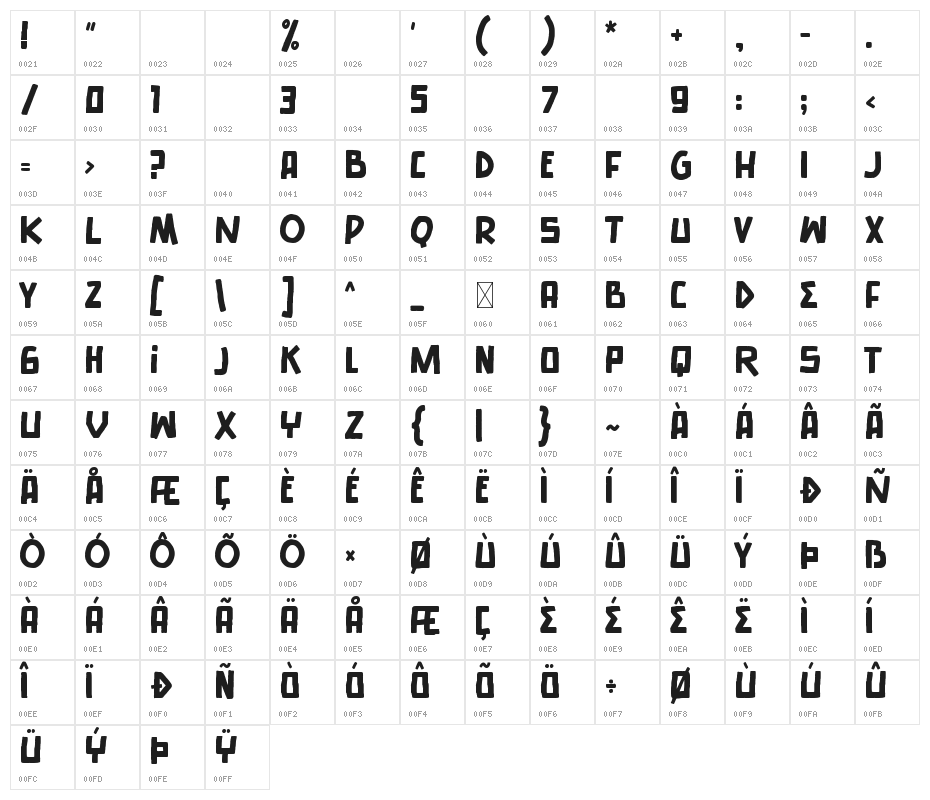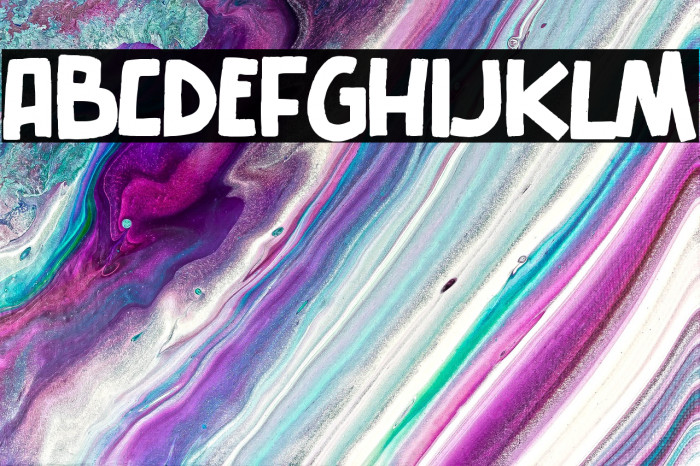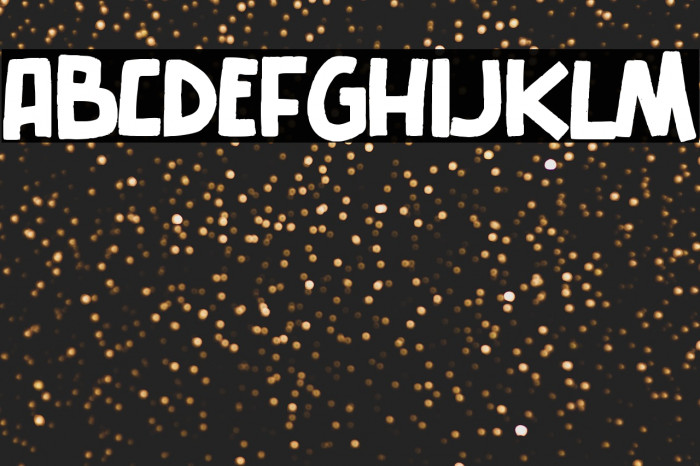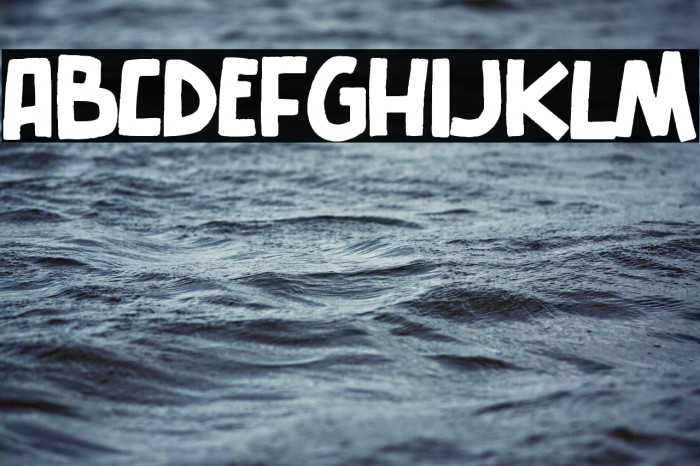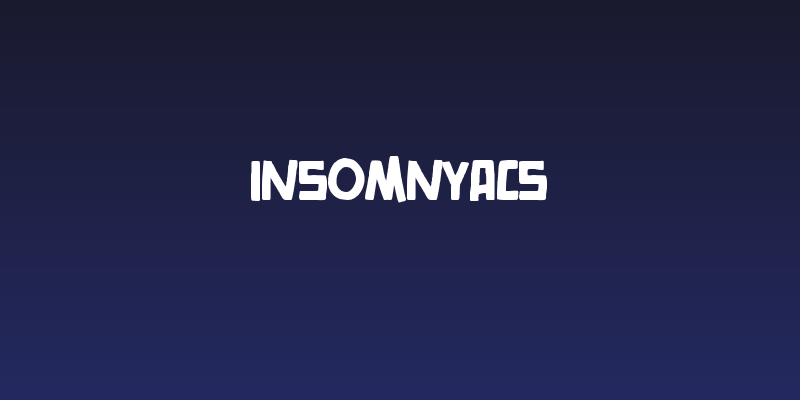
Insomnyacs Font
Insomnyacs Description
This font features a bold and playful design with a hand-drawn aesthetic. The characters are slightly irregular, giving it a casual and informal feel. The uppercase and lowercase letters are consistent in style, with rounded edges and a slightly uneven baseline, adding to its whimsical charm. The numbers and special characters maintain the same playful style, making it suitable for creative projects. The overall appearance is bold and eye-catching, perfect for designs that require a fun and approachable look.
| Proposed Projects | Ideal for children's books, comic strips, playful branding, and casual invitations. |